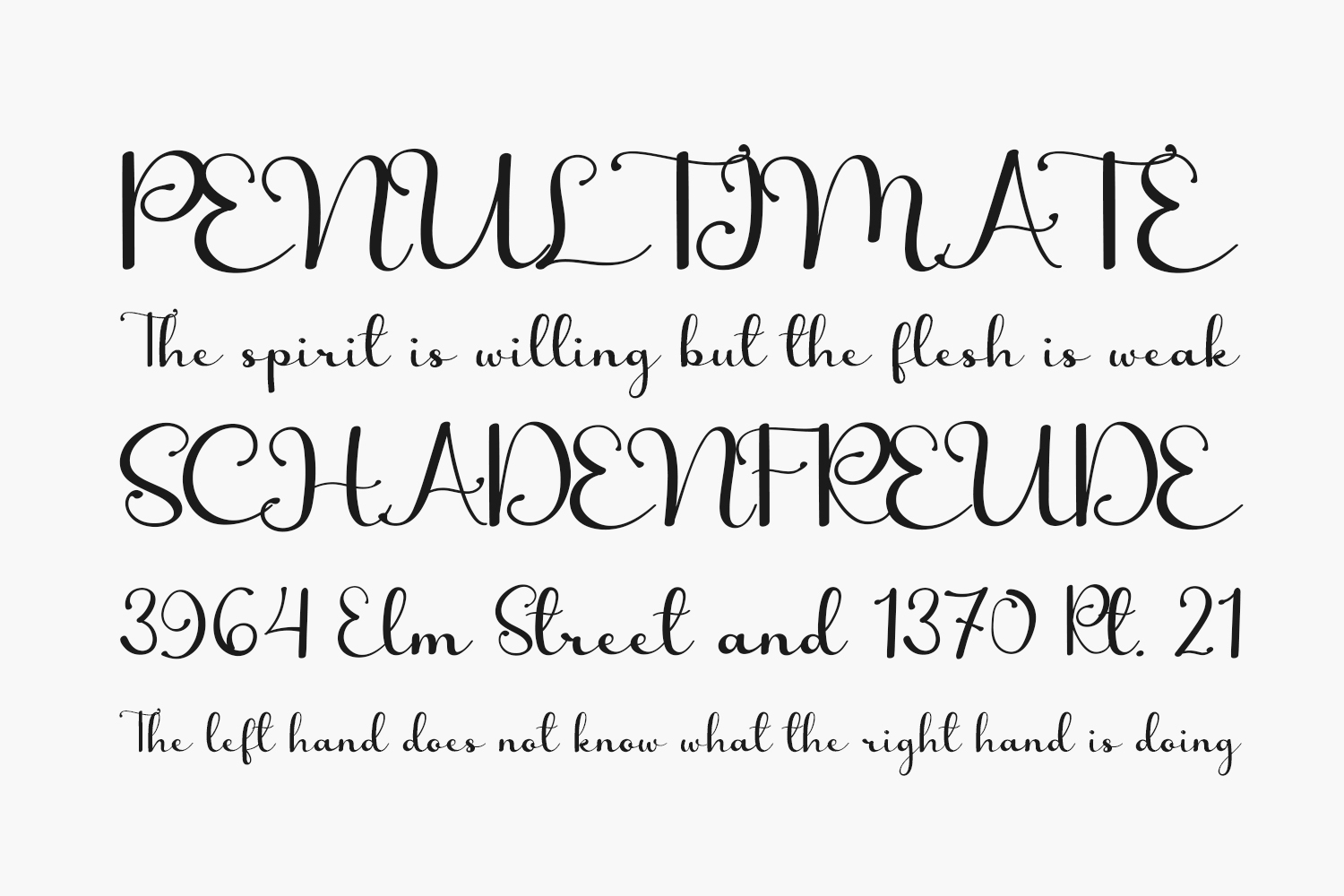
Kimberly Free Font, an exquisite and refined script font, emanates sophistication and style. It has been meticulously designed to cater to individuals seeking a stunning and rejuvenating aesthetic for their creative endeavors. Kimberly Free Font is free for personal use only. Please purchase the full version for commercial use.
Designed by Erik Studio